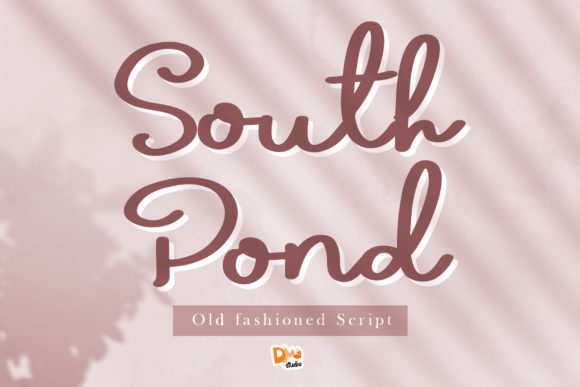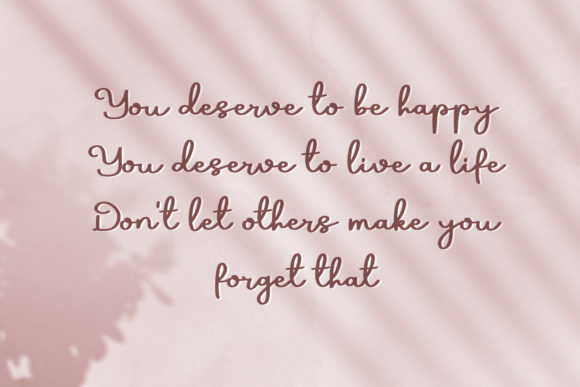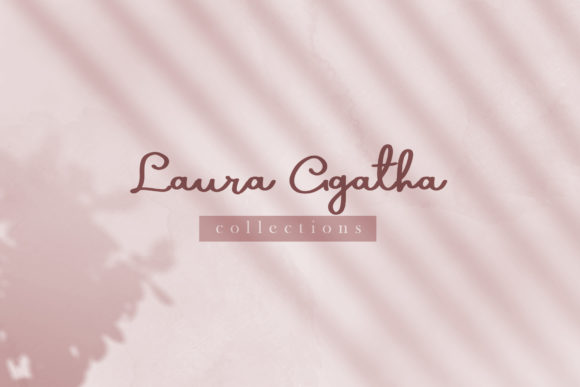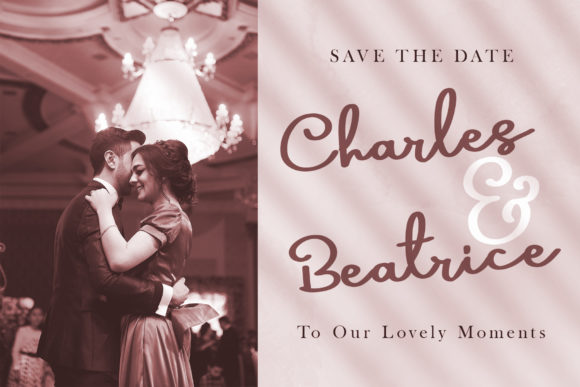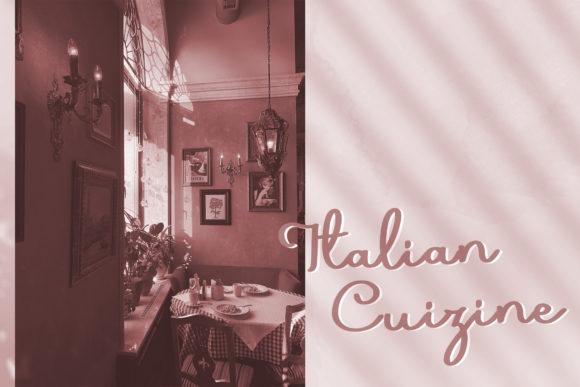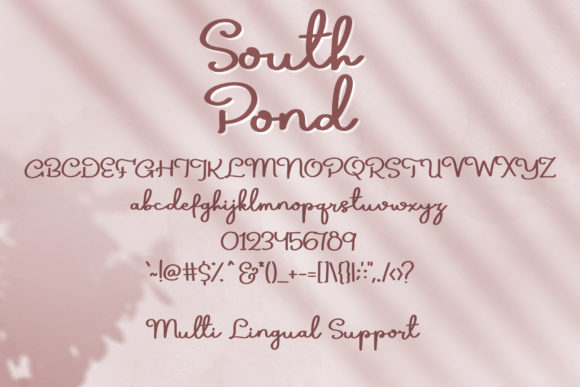
South Pond Font
About South Pond Font
Introducing “South Pond,” a sweet and friendly handwritten font that radiates warmth and charm. Its delightful beauty makes it a perfect fit for a wide range of design projects, adding a touch of handcrafted sweetness to every creation. Whether you’re working on invitations, posters, logos, or any other design, “South Pond” will bring a natural and unique style that knows no bounds. The only limit to its versatility is your imagination!
With “South Pond,” you have a font that carries a sense of authenticity and friendliness. Its natural and handwritten style adds a personal touch to your designs, creating a delightful visual experience. Whether you’re working on wedding materials, branding, or social media graphics, this font adds an air of approachability that leaves a lasting impression.
The charm of “South Pond” lies in its ability to adapt seamlessly to various design contexts. Its sweet and friendly appeal makes it suitable for a wide variety of projects, making it the perfect choice for all your creative ventures.
Unleash your creativity and watch how “South Pond” enhances your designs with its natural and inviting touch. Whether you’re crafting heartfelt messages, creating cozy logos, or designing engaging social media posts, this font will bring a sense of authenticity and warmth that captivates your audience.
So, immerse yourself in the charm of “South Pond” and let it become your creative companion. Allow its natural and friendly style to inspire your designs, turning them into delightful works of art. Whether you’re a seasoned designer or a passionate enthusiast, “South Pond” empowers you to create visuals that stand out and make a statement. Let “South Pond” be the key to unlocking the warmth and versatility in your designs, and watch as it takes your projects to new levels of creativity and appeal!